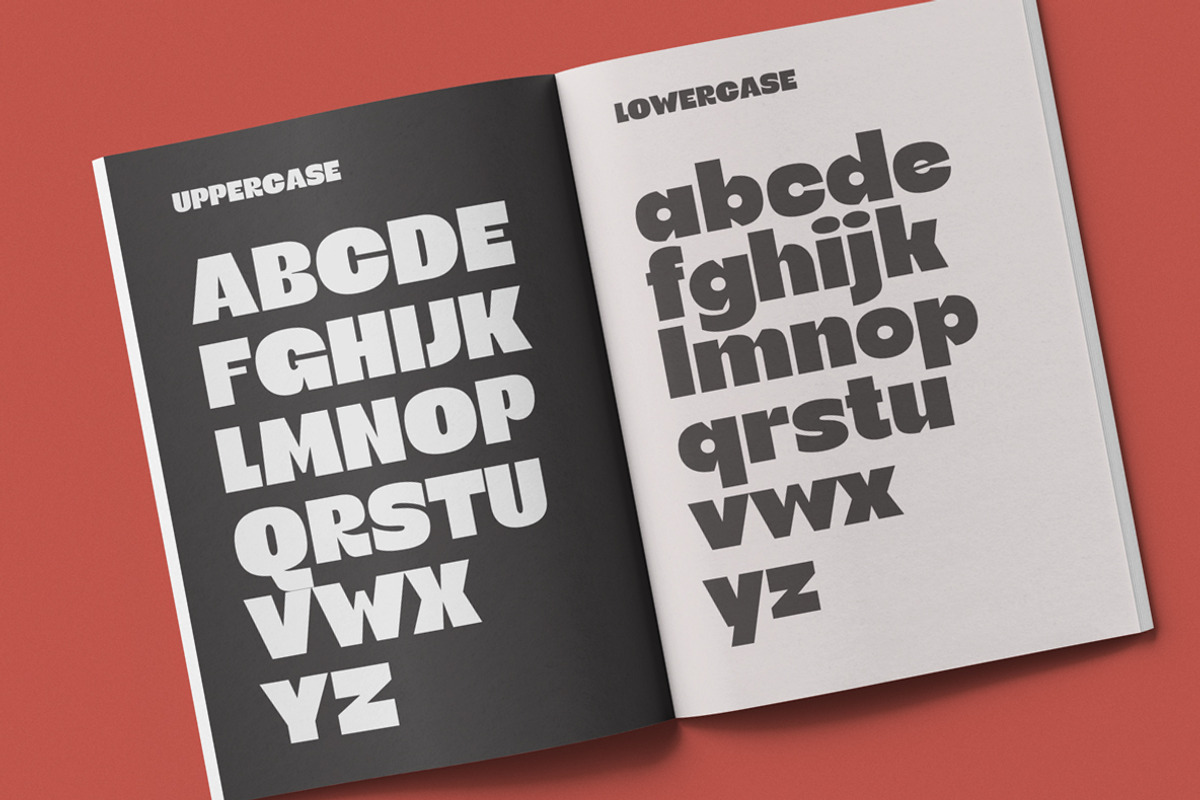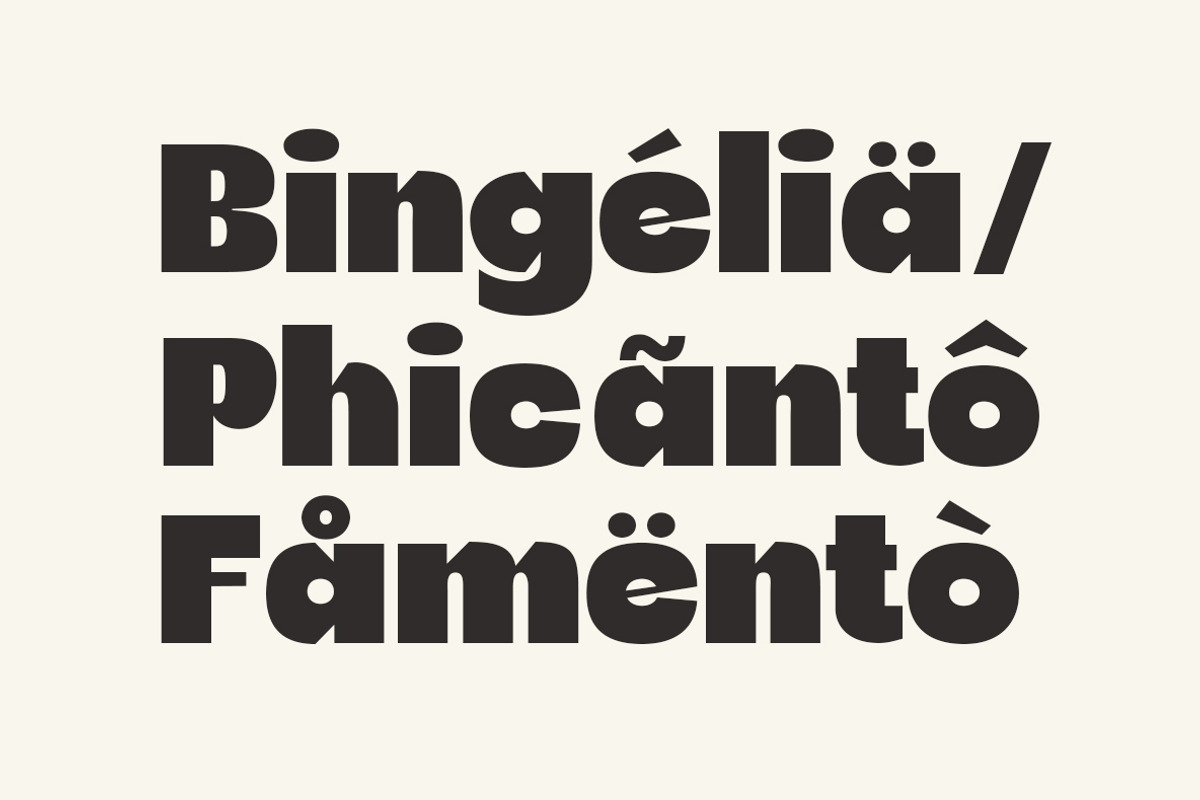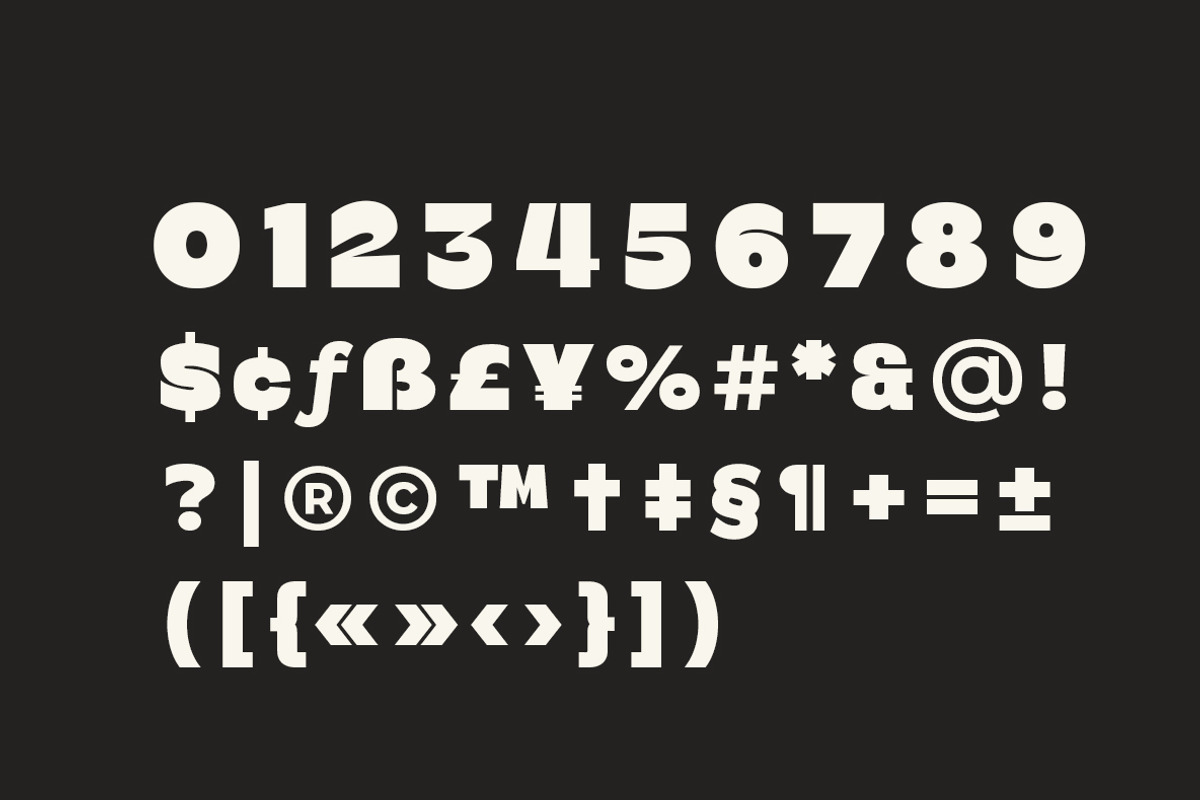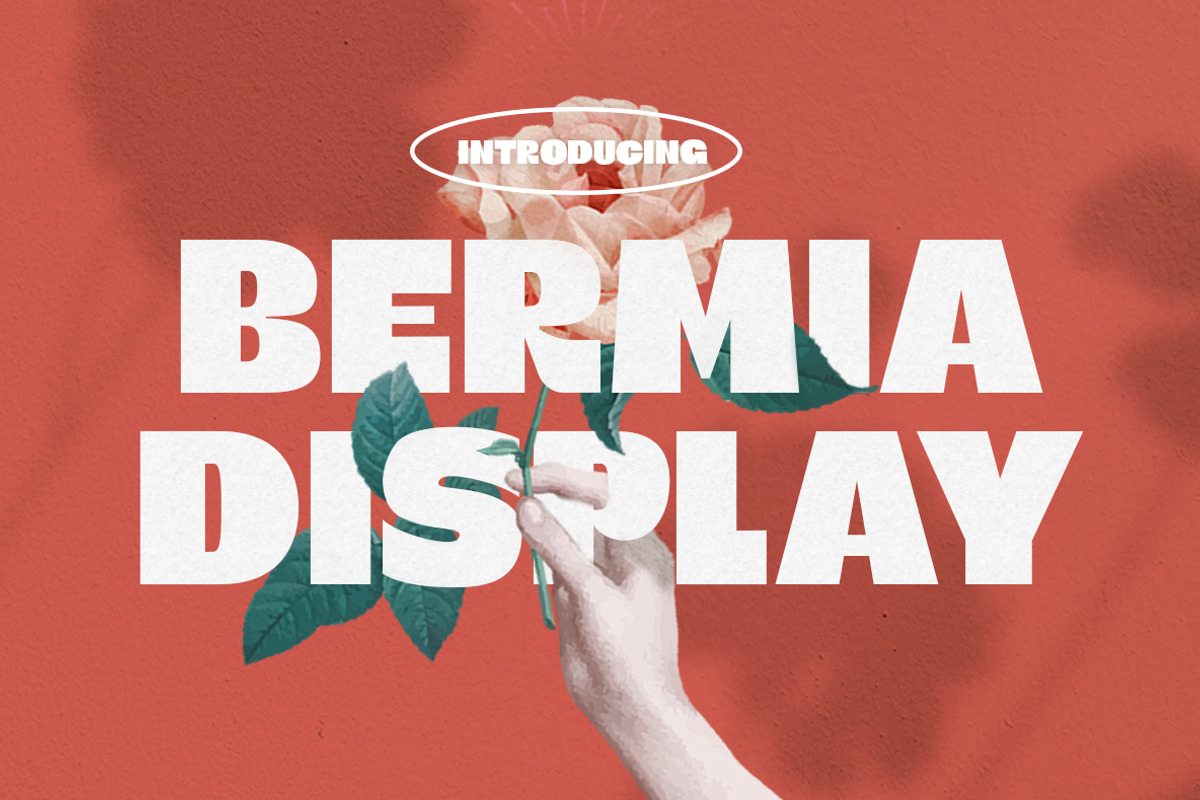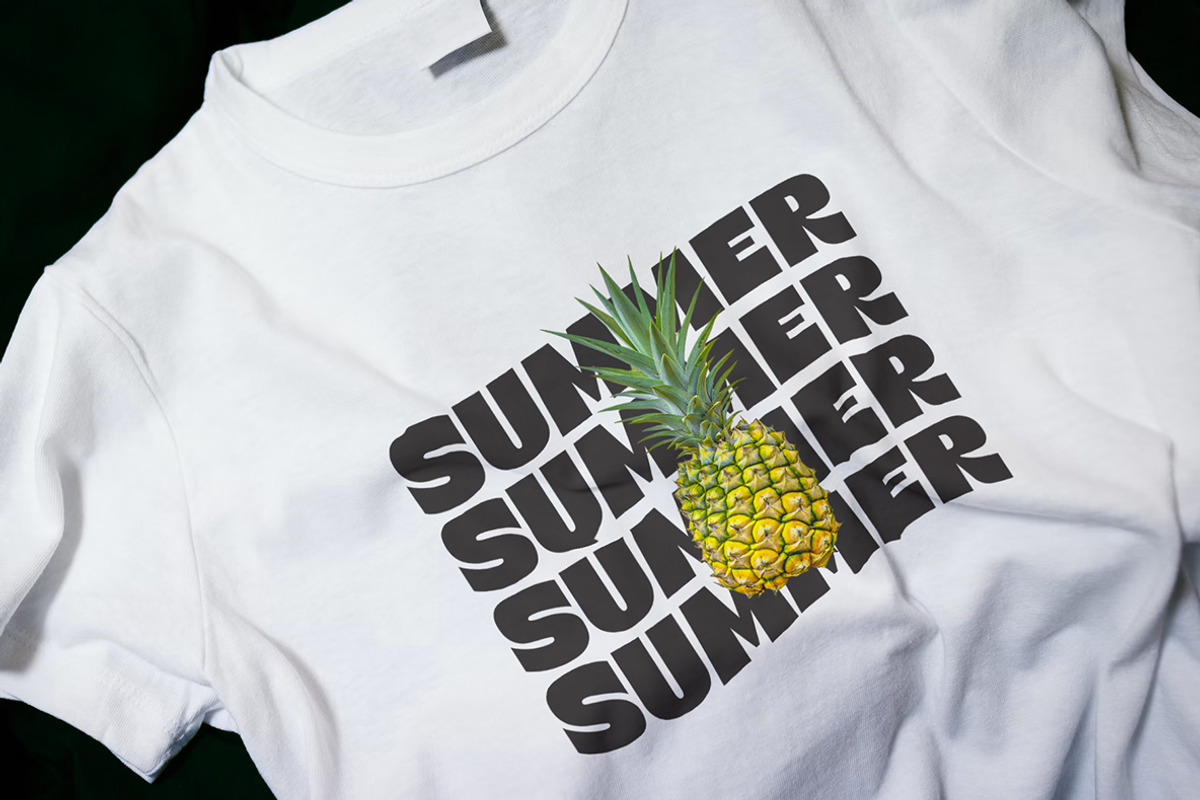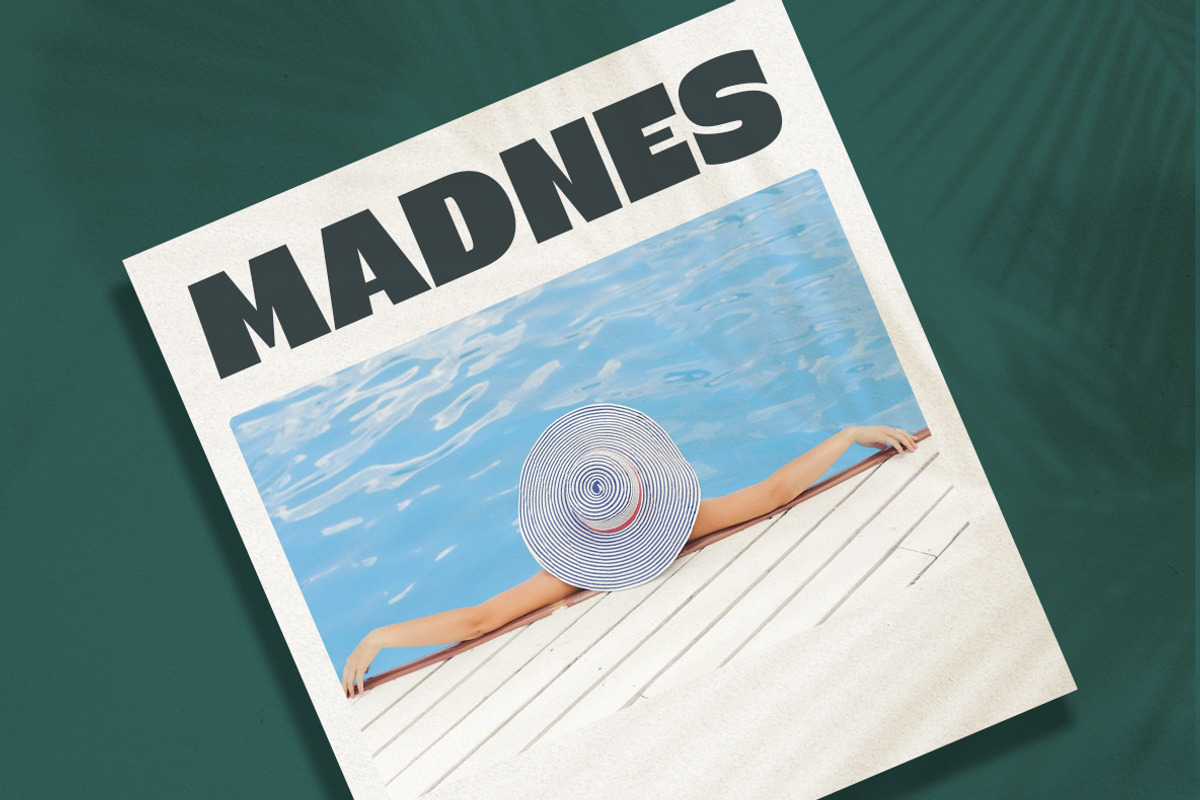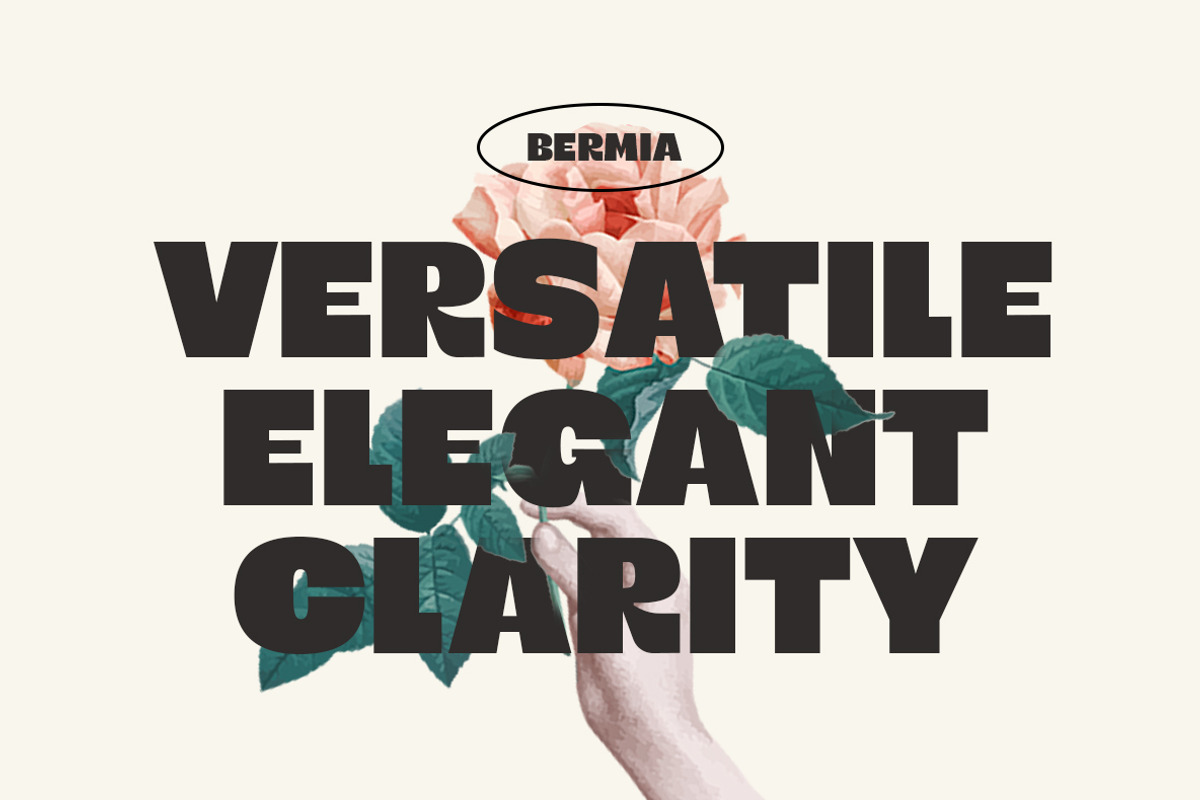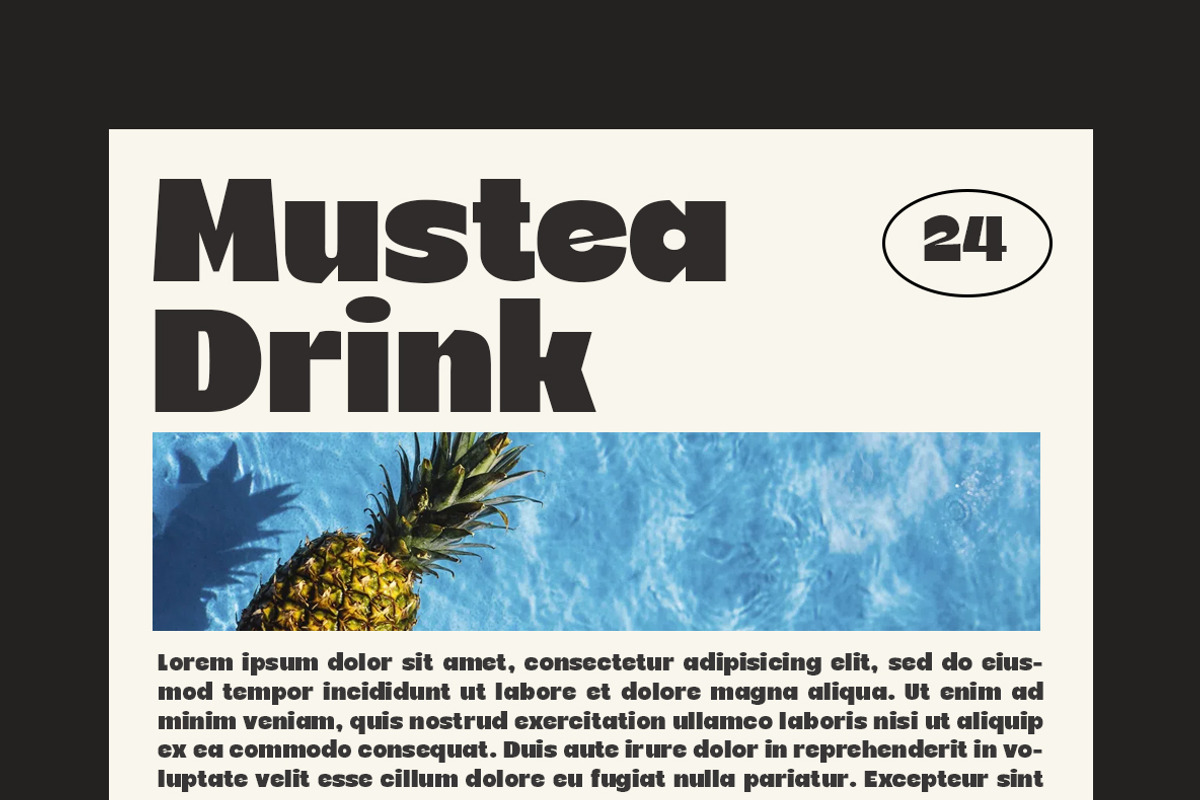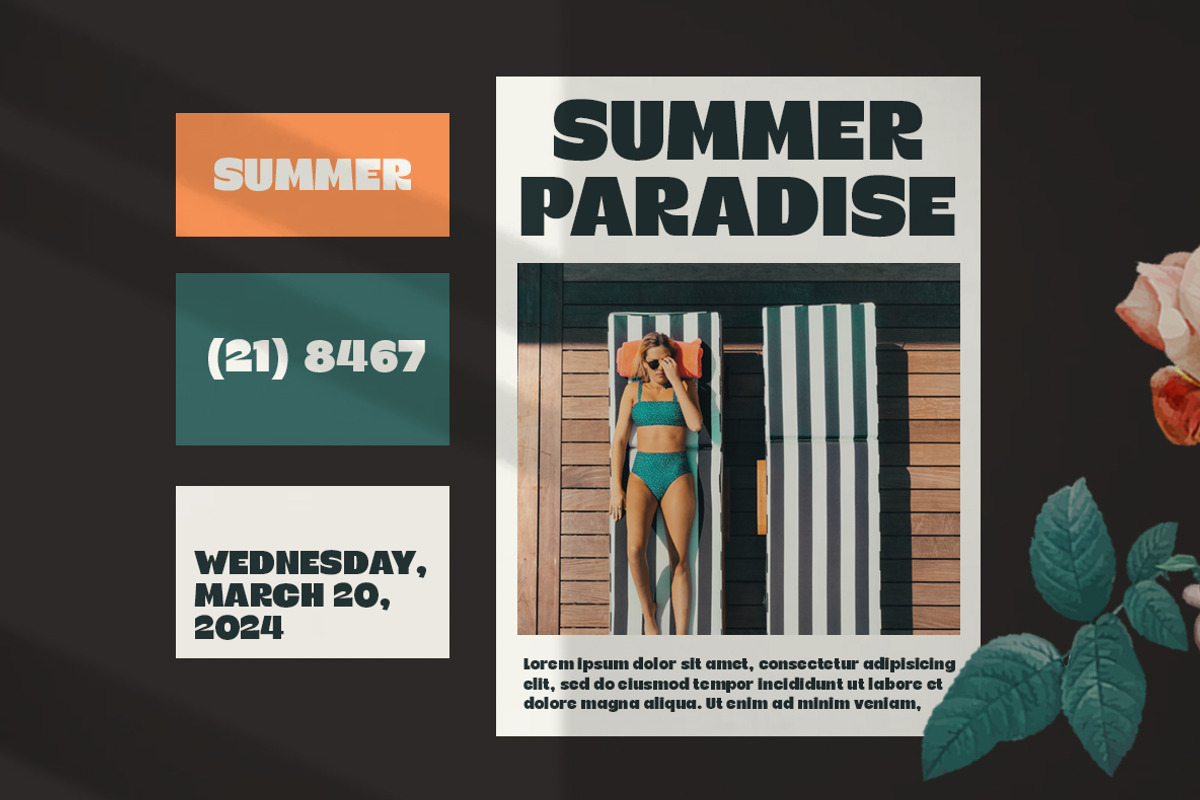
Bermia Display Font
Bermia display font is a bold and elegant display font suitable for branding, posters, logos, and advertisements. This font ensures that messages conveyed through text remain easy to read and understand.